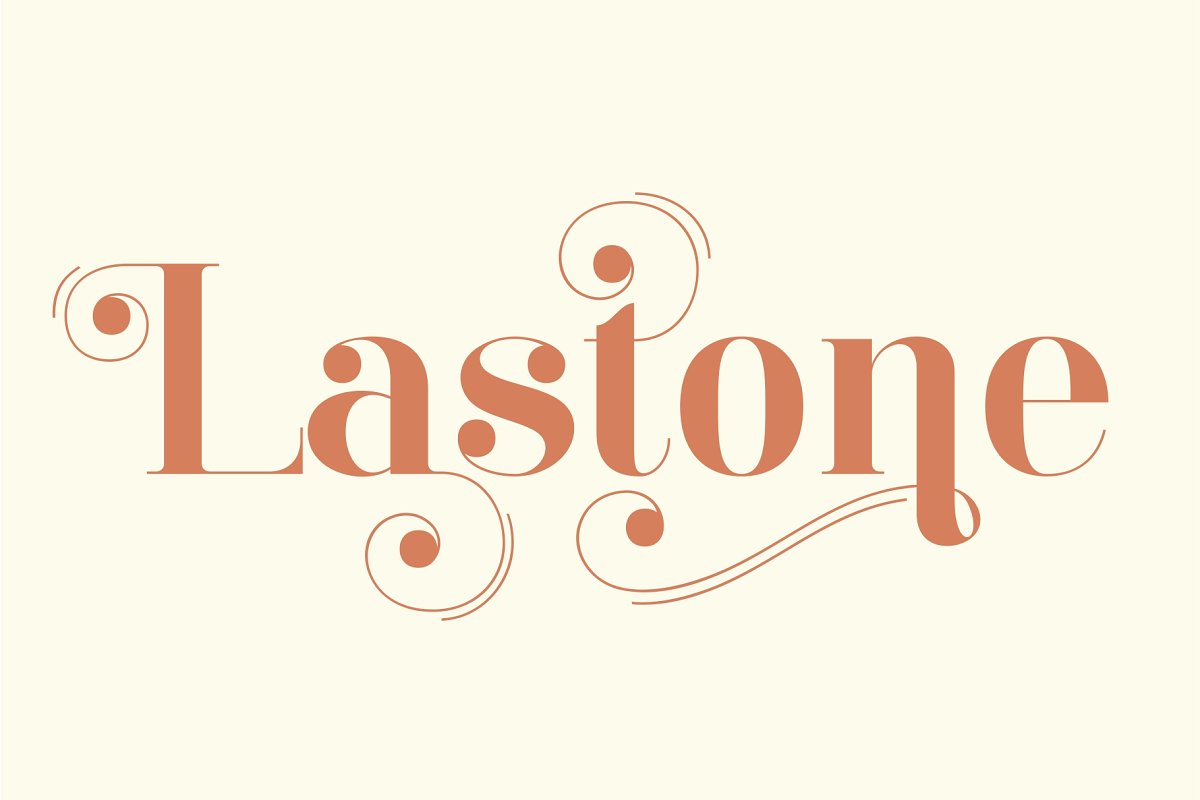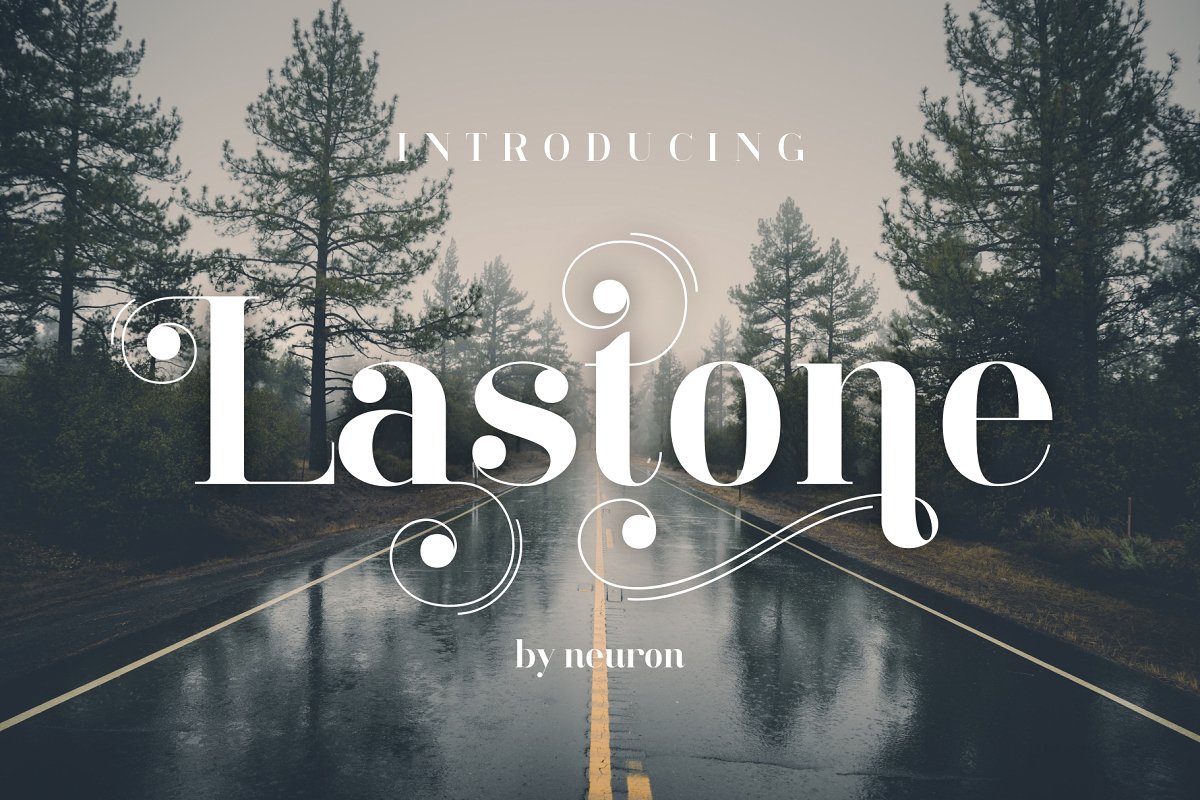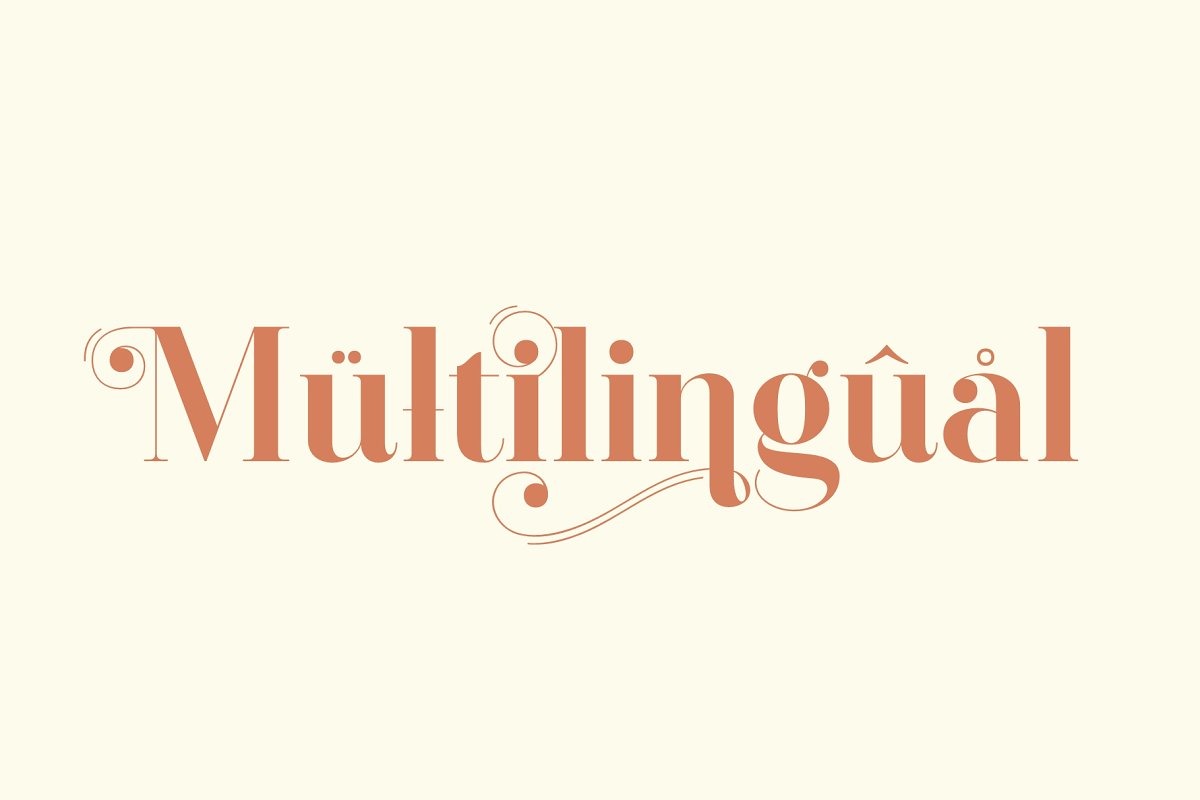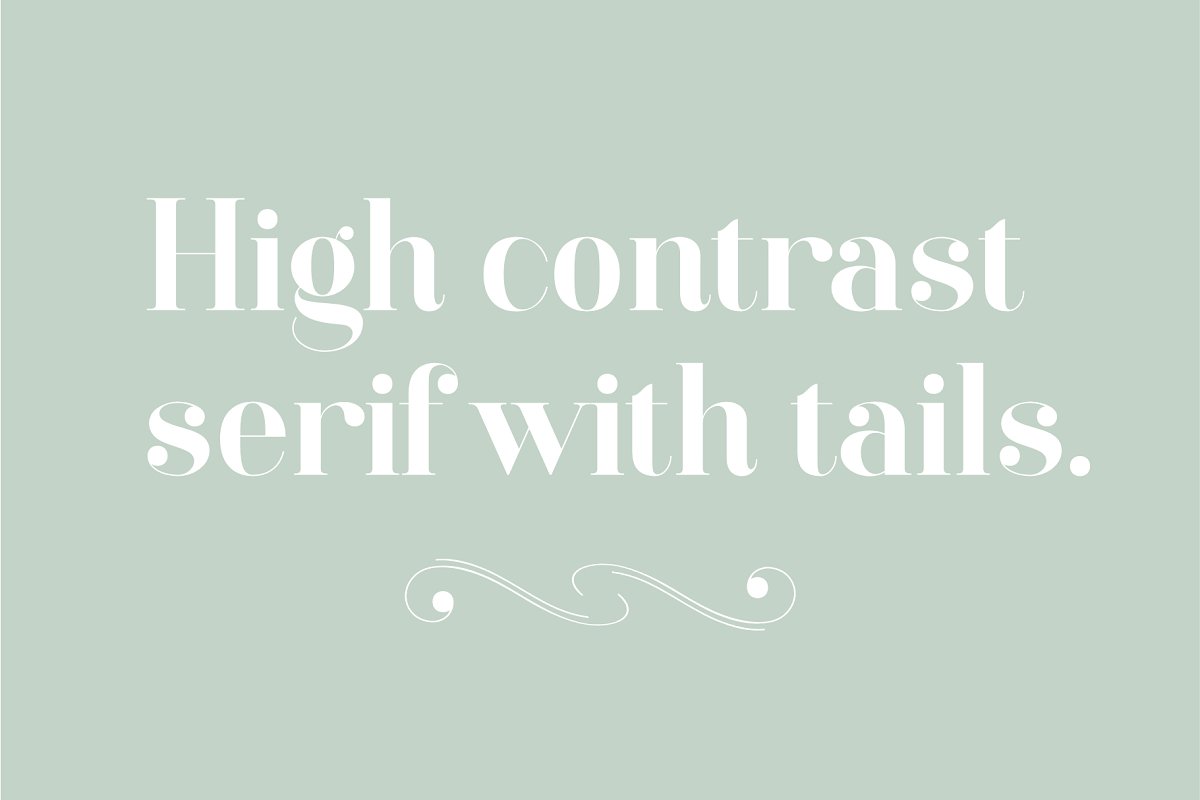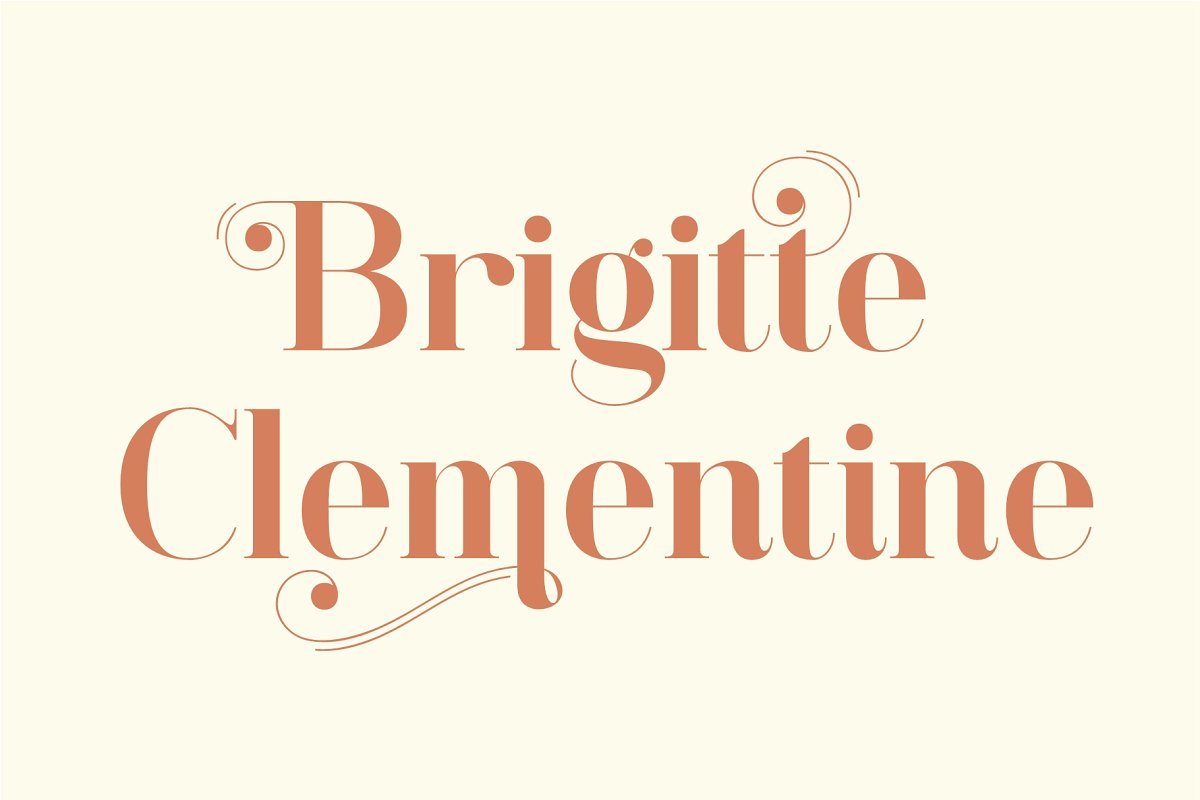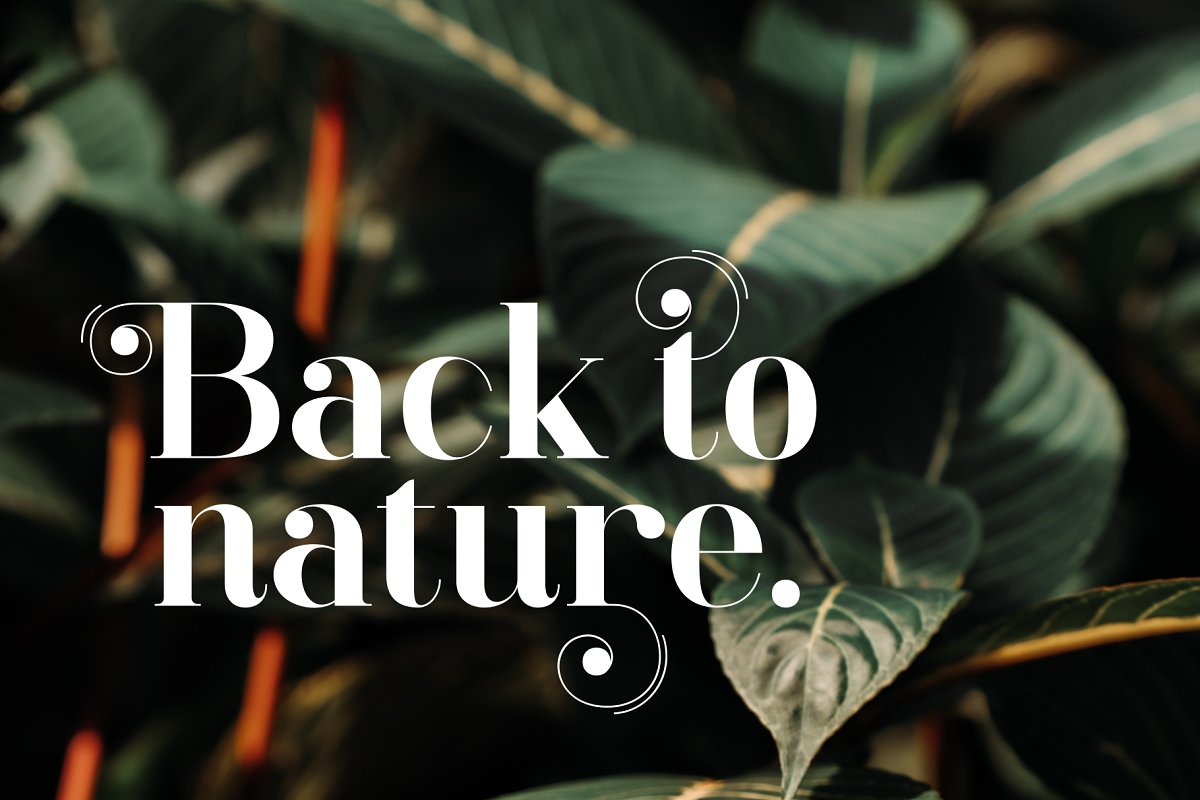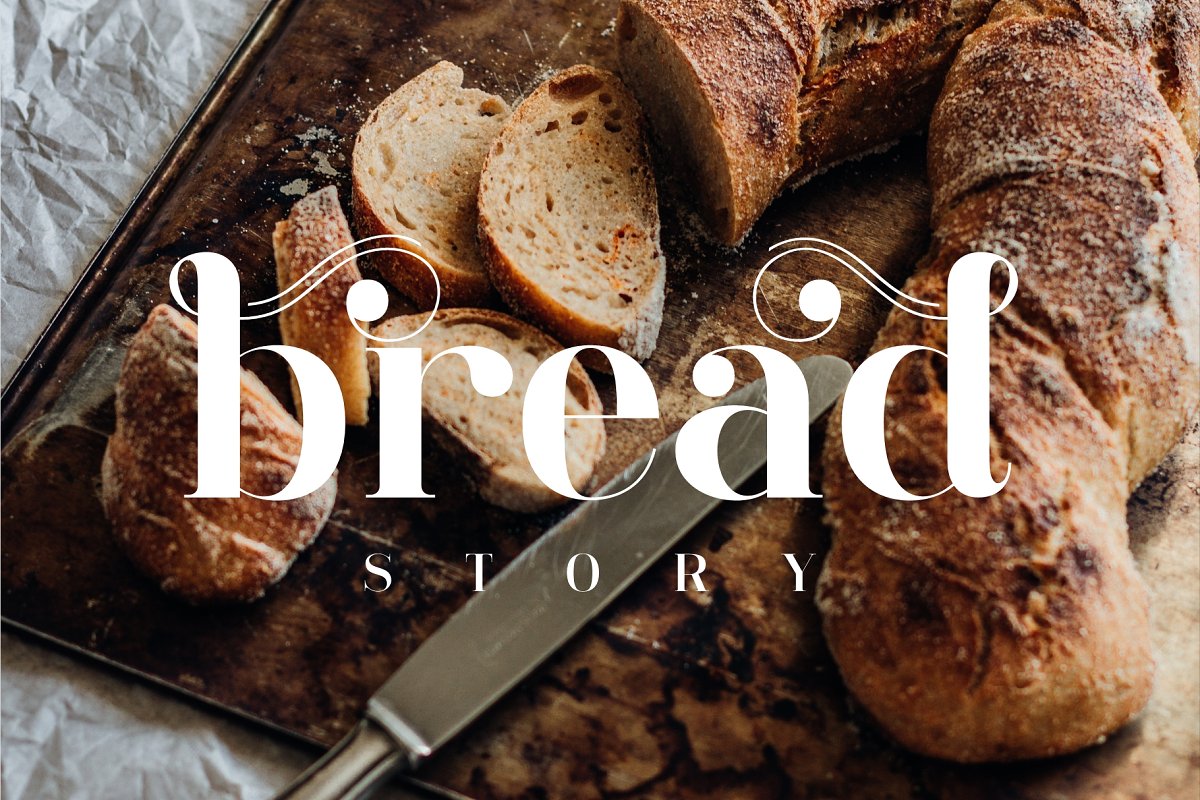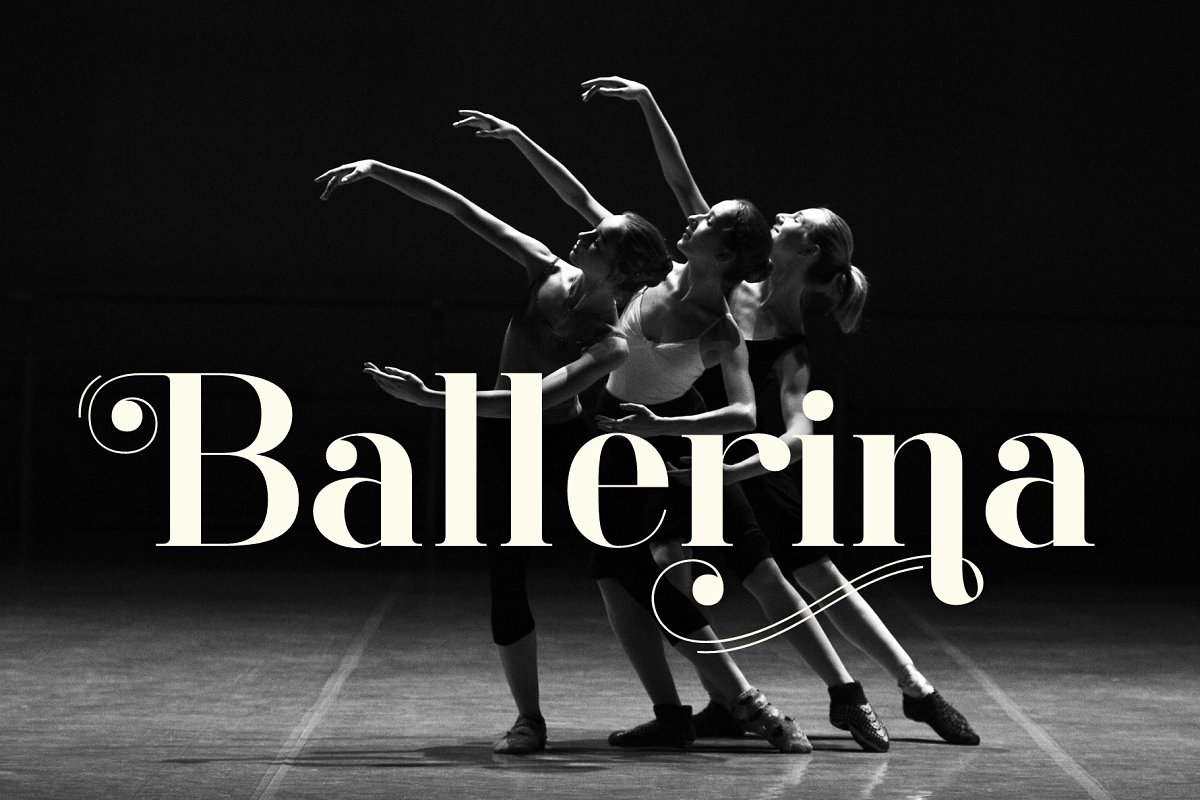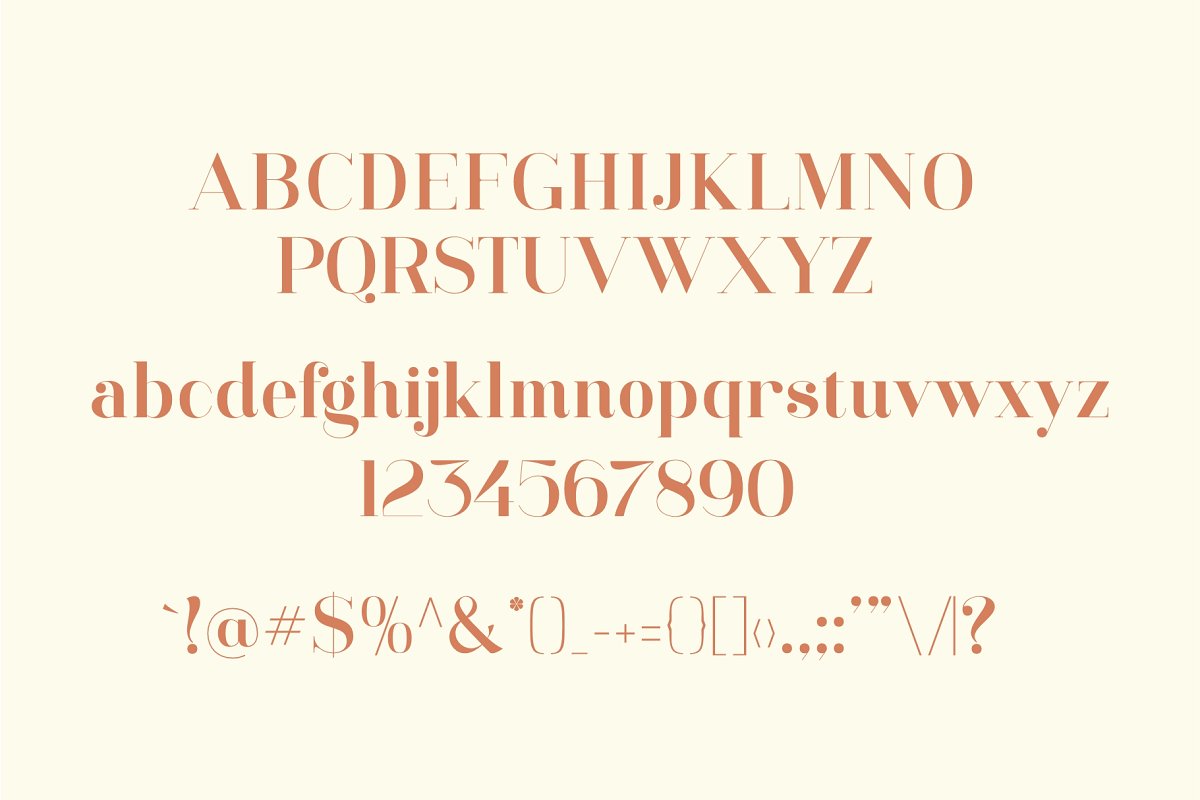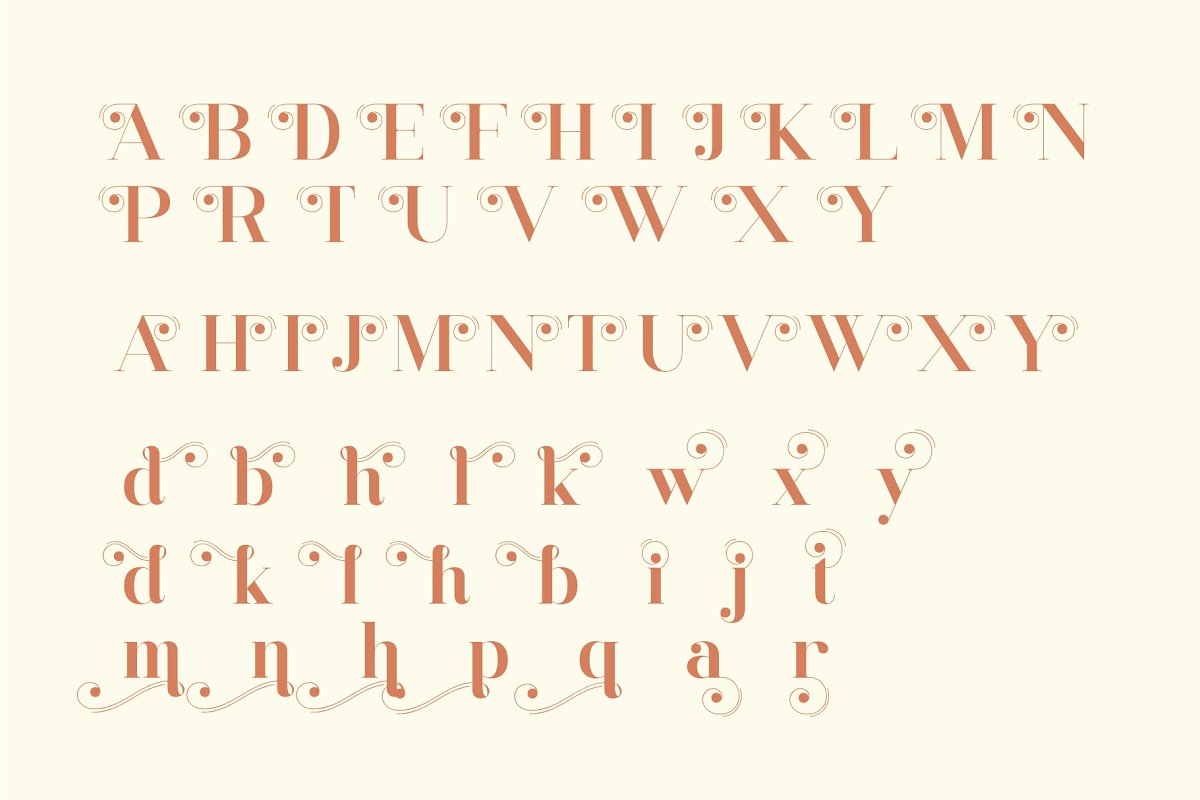
LastOne Display Font is a high contrast serif font with unique tails, alternate, and extra ornaments. Numbers and punctuation included, multilingual support. Be ignite by his persona.